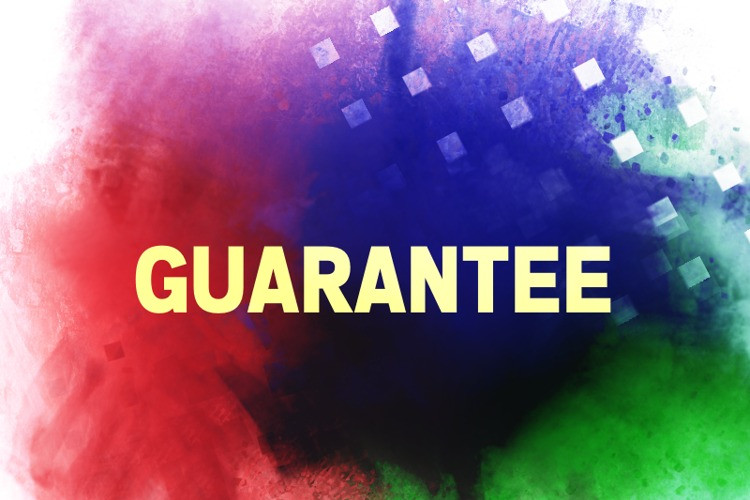
Guarantee Font. This bundle features strong, confident and powerful typefaces designed to work great with sports logos, club branding, apparel applications, labels and more.
Guarantee Font
| Classification: | Display Fonts, Sans Serif Fonts |